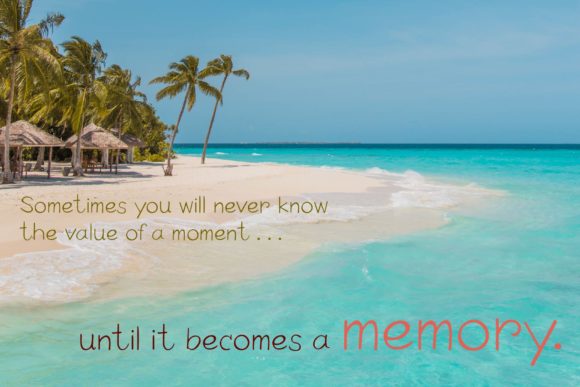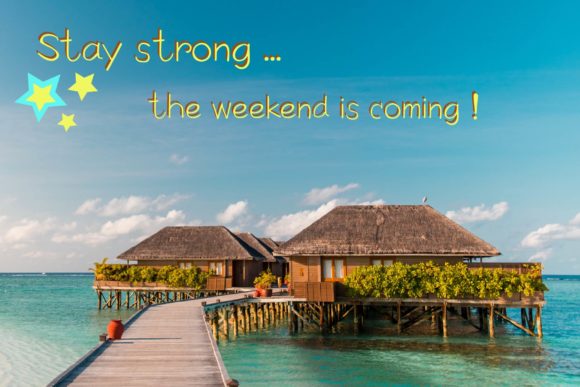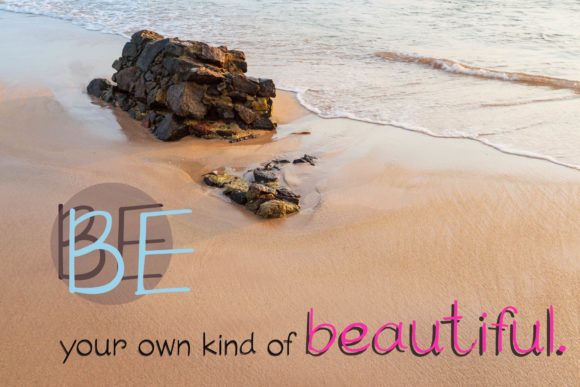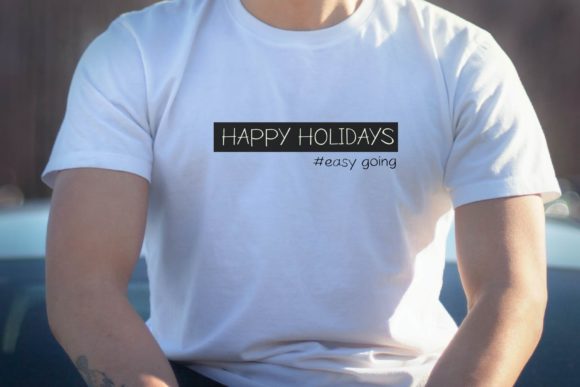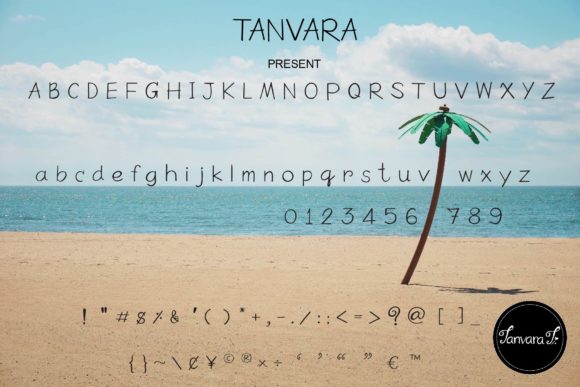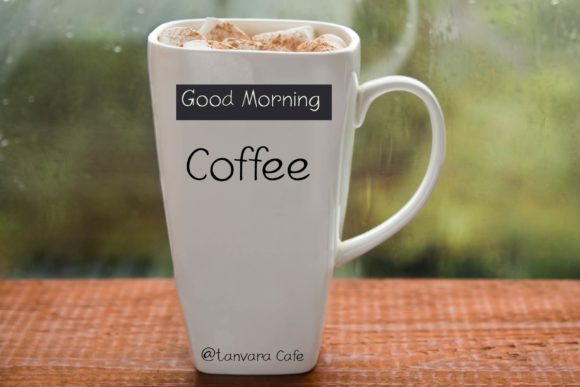
Tanvara Font
About Tanvara Font
Tanvara is a sweet and friendly handwritten font. Its natural and unique style makes it incredibly fitting to a large pool of designs. The only limit is your imagination!